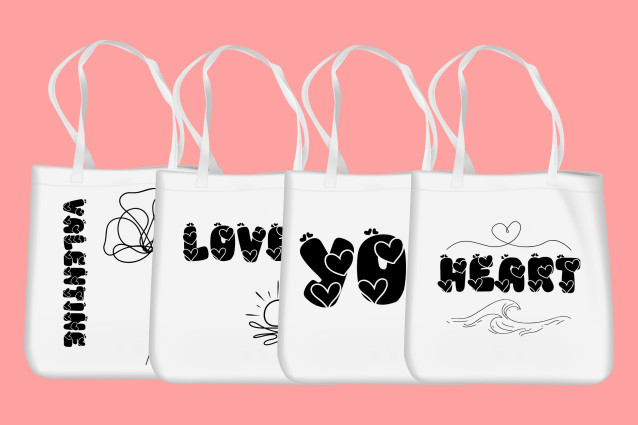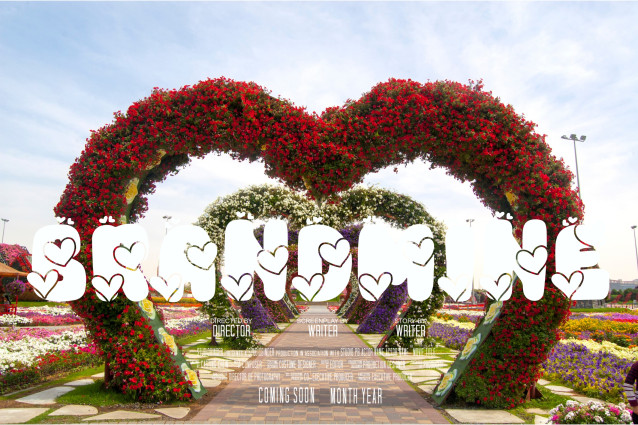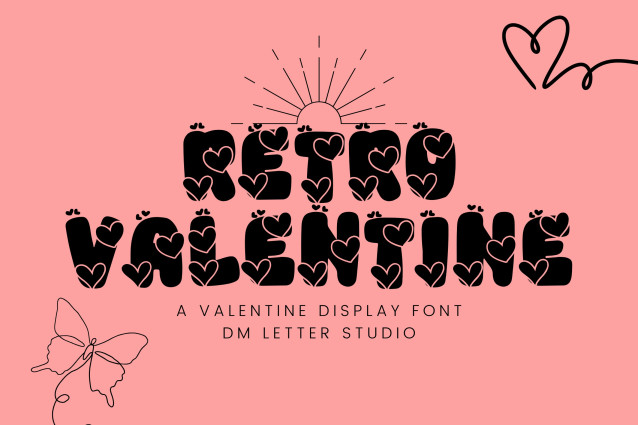
Retro Valentine Font
Retro Valentine Font is a sweet and stylish display font inspired by vintage lettering with a romantic twist. With bold curves, charming heart details, and a bubbly retro vibe, it’s the perfect choice for Valentine’s Day cards, wedding invites, love quotes, and social media posts. This font brings a nostalgic yet fresh energy to any design that celebrates love.